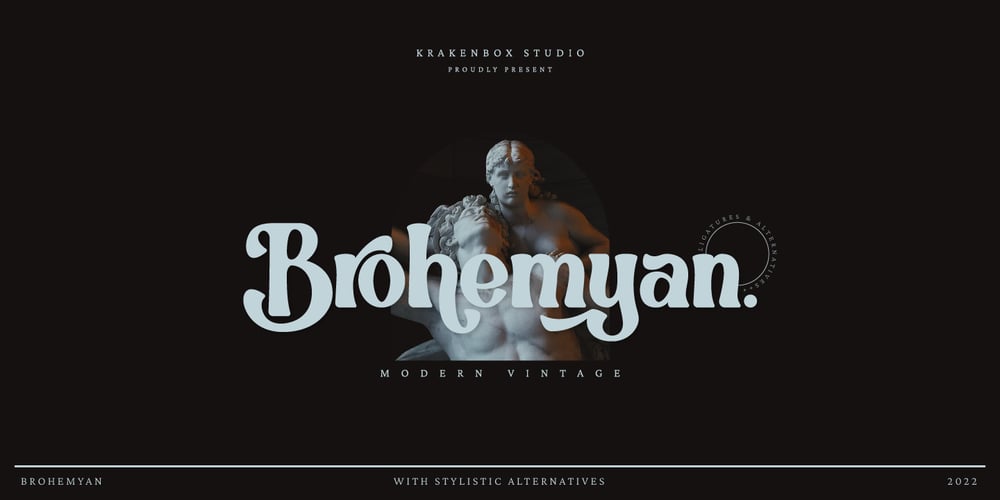
Brohemyan Font Family was designed by Yahdi Kumala and published by Krakenbox Studio. Brohemyan contains 1 styles and family package options. Brohemyan is a vintage-modern serif typeface. It has vintage, modern, classic & elegant. It’s a great font for fashion, apparel projects, signature, album cover, logo, branding, magazine, social media, & advertisements, but also it works great for other projects.